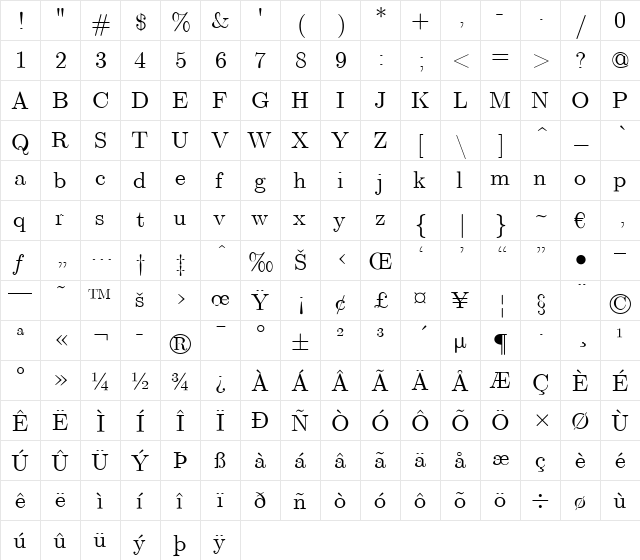
Euclid Regular
| Foundry | Design Science, Inc |
| Designer | Donald Knuth, Richard Kinch, Paul Topping, Jim King |
Design Context for Euclid Typeface
Euclid takes a measured approach to typography — its balanced proportions and neutral character make it a reliable workhorse for both digital and print work.